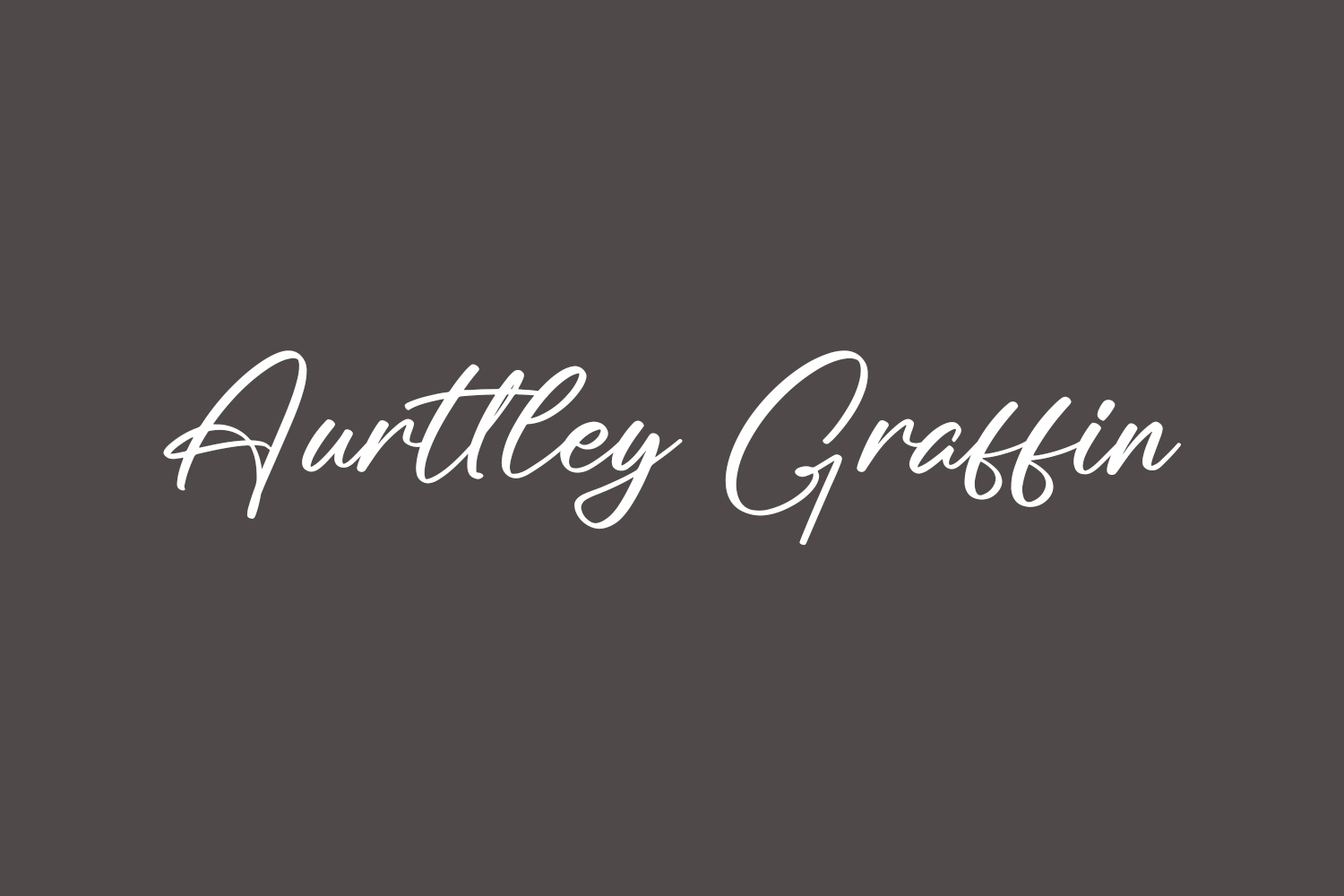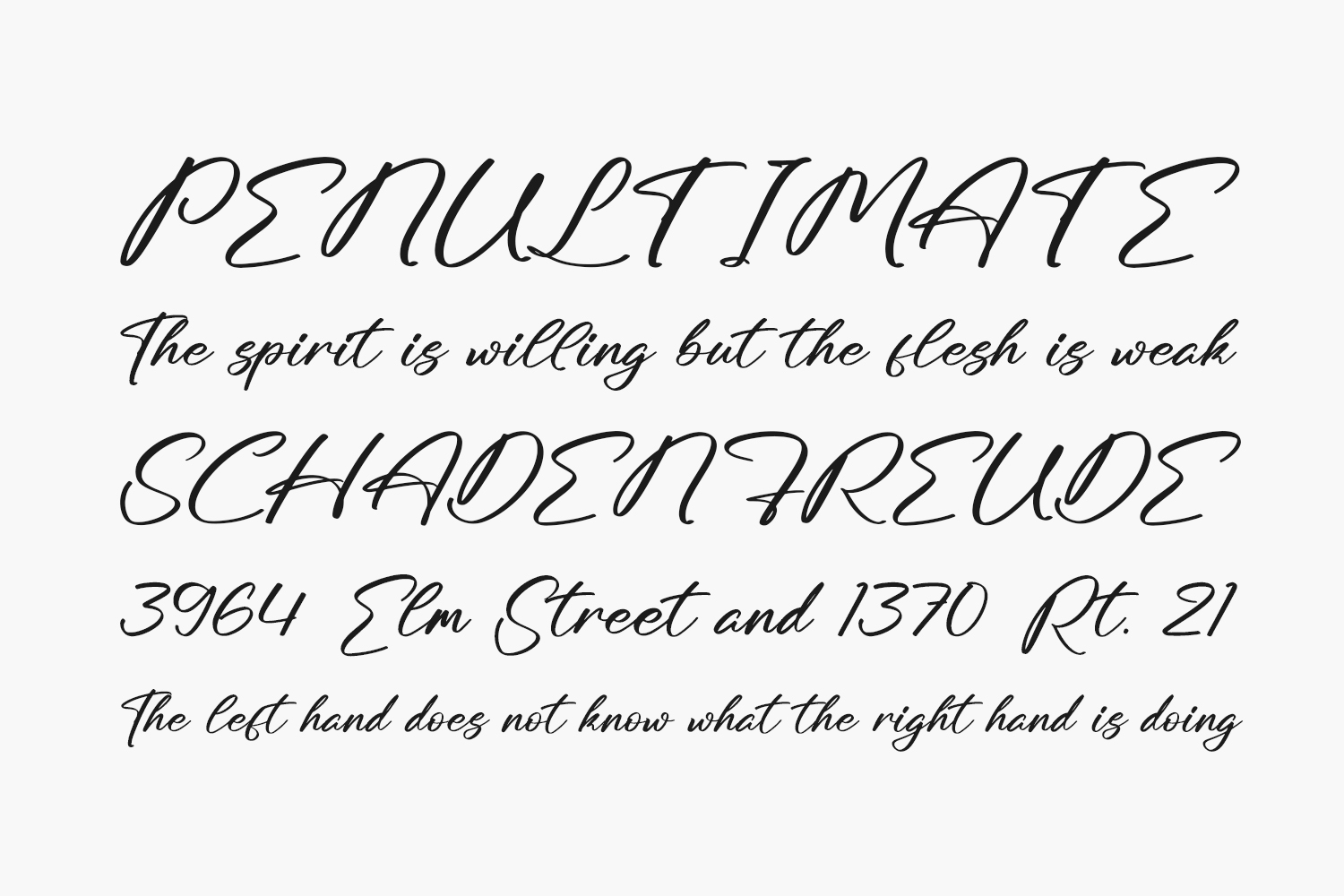
Introducing Aurttley Graffin Free Font – a contemporary handwritten script by Glorytype Studio, perfect for a myriad of projects including logos, branding, homeware designs, product packaging, mugs, quotes, posters, shopping bags, t-shirts, and book covers. Unlock its versatile charm for your creative endeavors. Download the font for free if you need it for personal use or purchase the full version for commercial use.